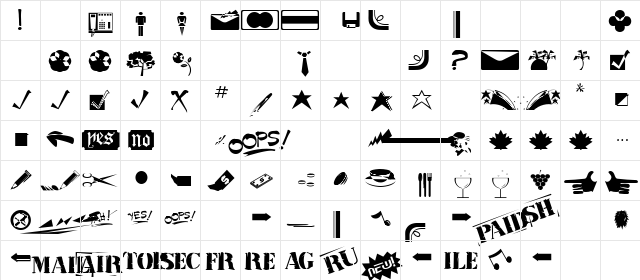
DoodleDingbatsNineSSK Regular Font Preview
DoodleDingbatsNineSSK Regular
Design Context for DoodleDingbatsNineSSK Typeface
DoodleDingbatsNineSSK is a composed and adaptable typeface that performs quietly and consistently across a wide range of design contexts.